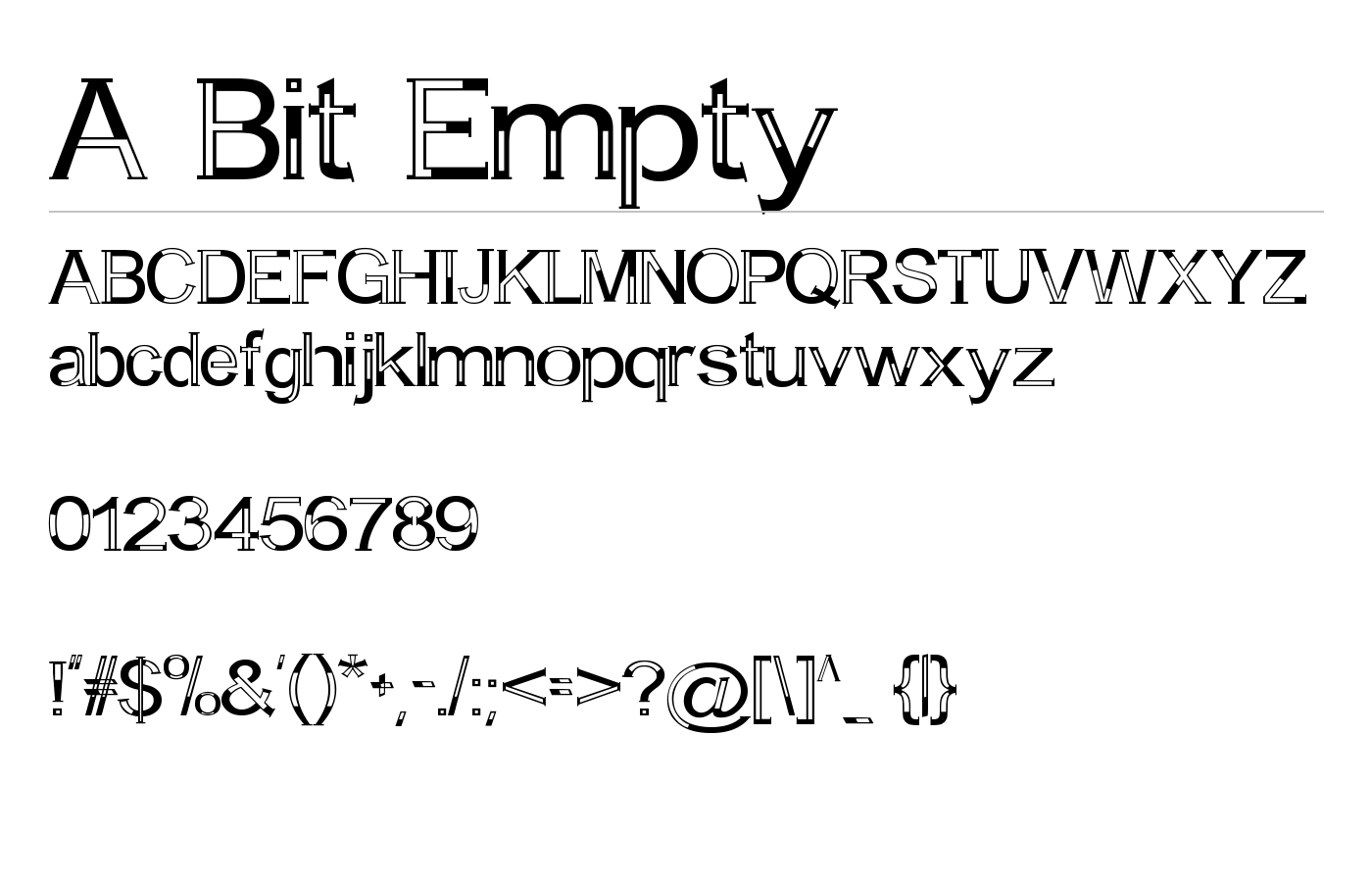
A Bit Empty is a unique serif font that blends solid and outline elements within its letterforms, creating an artistic, slightly fragmented look. Its medium weight and regular width coupled with sharp, elongated serifs and high contrast strokes give it an elegant yet edgy personality, making it well-suited for creative branding, editorial headlines, and modern design projects that want to stand out with a touch of sophistication and unconventional flair. This font’s distinctive style works best in large sizes, where its intricate details can be fully appreciated.
A Bit Empty Font
About A Bit Empty Font
| Font family | A Bit Empty Font |
| Designer | Martin Leśków |